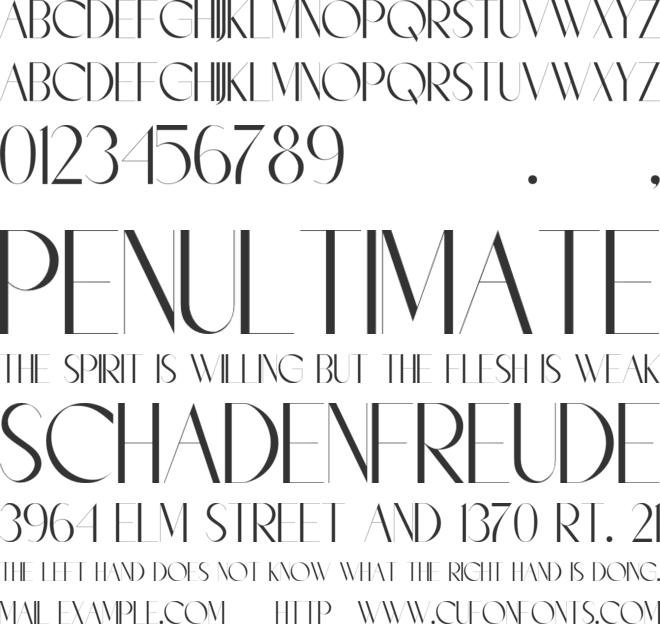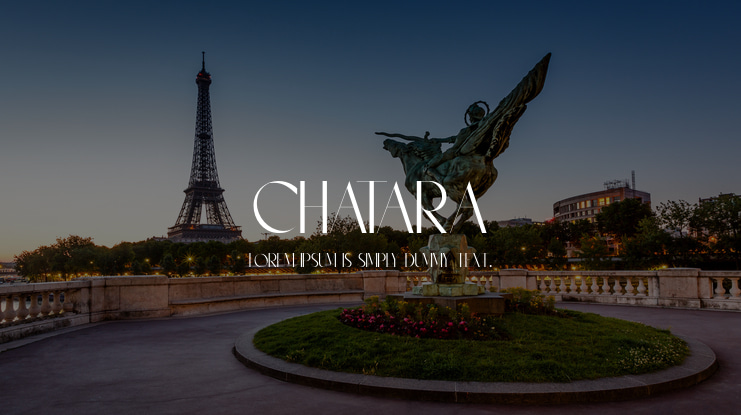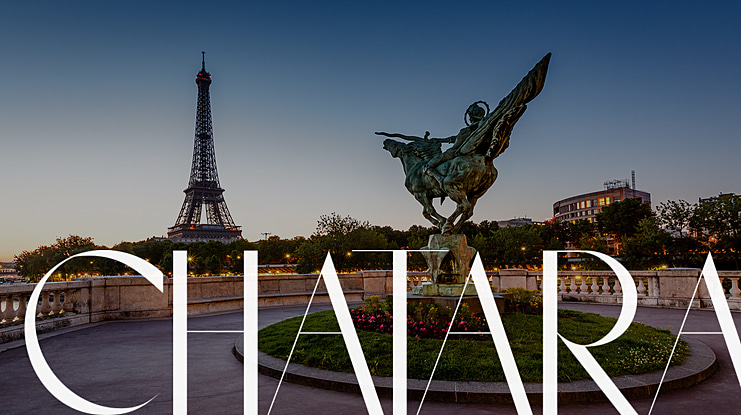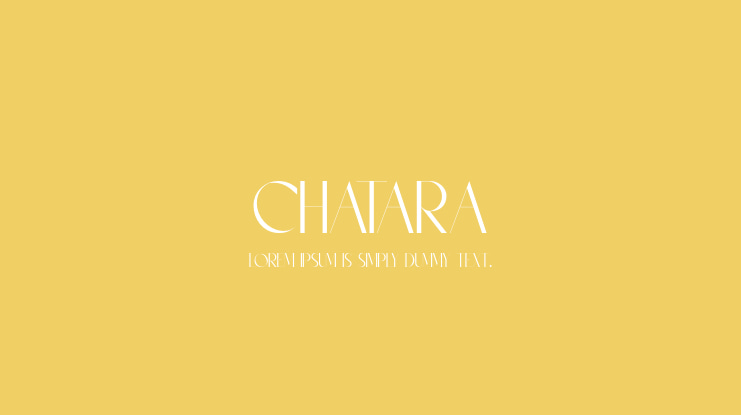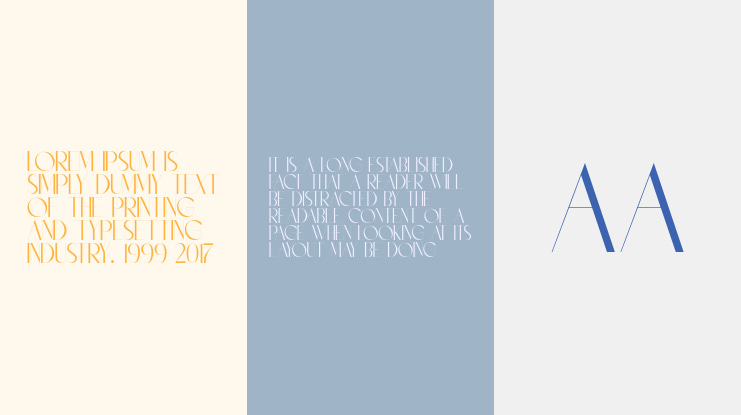
Chatara Font
It’s an elegant and modern all-caps sans serif typeface manufactured by Saxofont. Fall for its ravishing style and use it to create gorgeous logos, headline, title, branding, wedding invitations, beautiful stationary art, eye-catching social media posts, and much more! This font is PUA encoded which means you can access all of the glyphs and swashes with ease!
Chatara font preview